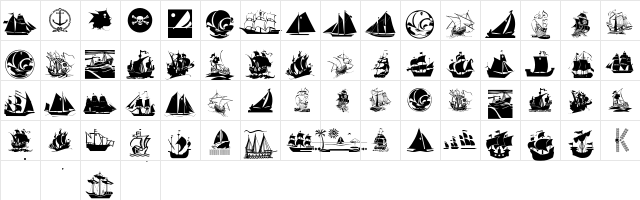
Complete ArmadaPirata Regular glyph index. Displaying only characters natively supported by ArmadaPirata Regular font.
ArmadaPirata is a composed and adaptable typeface that performs quietly and consistently across a wide range of design contexts.